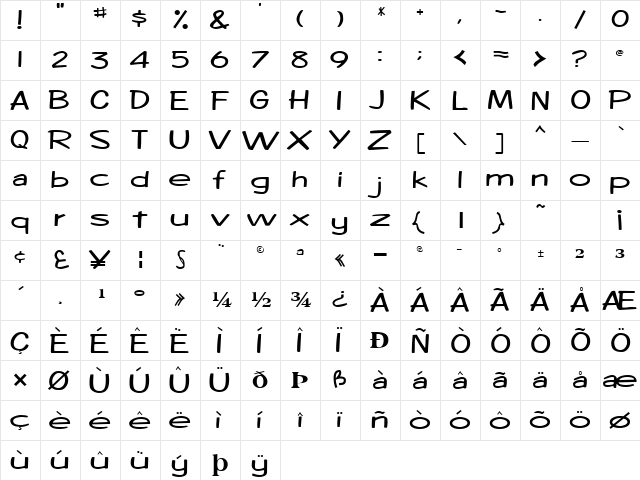
PinellasSSK Regular
Design Context for PinellasSSK Typeface
PinellasSSK takes a measured approach to typography — its balanced proportions and neutral character make it a reliable workhorse for both digital and print work.